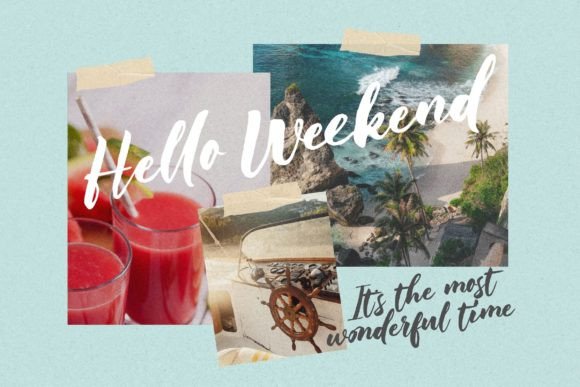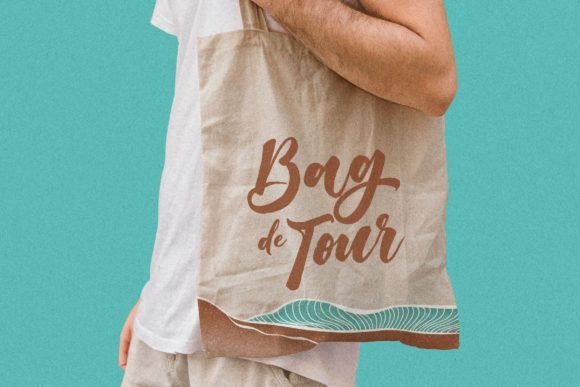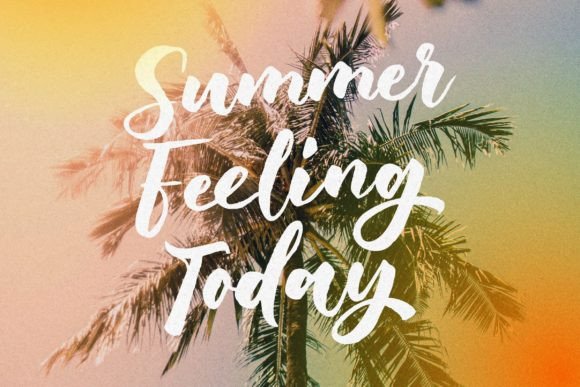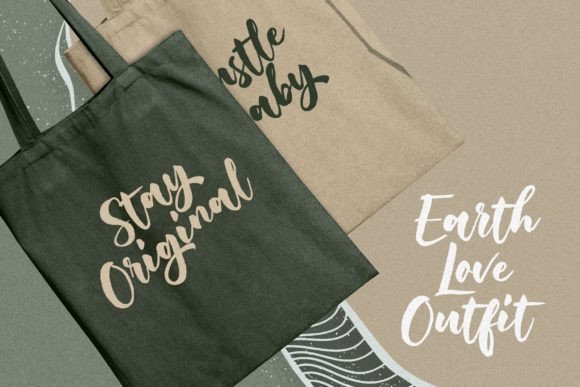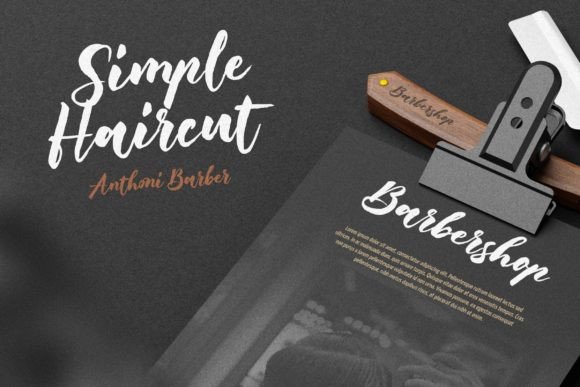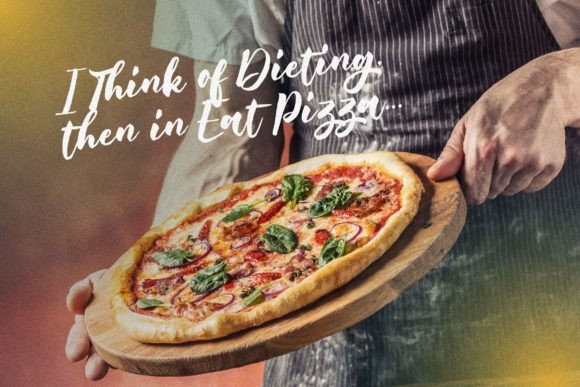
Born Pacific Font: Elevate Your Designs with a Touch of Elegance
Are you a designer or crafter looking for a font that can add a touch of sophistication and elegance to your work? Look no further than Born Pacific Font. This beautiful handwritten font is perfect for a wide range of design projects, from branding and photography to invitations and product packaging.
What is Born Pacific Font?
Born Pacific Font is a carefully crafted handwritten font that exudes a sense of refinement and luxury. Its elegant strokes and flowing lines make it perfect for designs that require a personal touch. Whether you’re working on a wedding invitation, a product label, or a brand identity, Born Pacific Font is sure to impress.
What Can I Use Born Pacific Font For?
The versatility of Born Pacific Font is one of its standout features. This font is perfect for:
- Branding: Create a lasting impression with your brand identity using Born Pacific Font. From logos to business cards, this font is sure to elevate your brand’s visual presence.
- Photography: Add a touch of elegance to your photo captions, watermarks, or even photo editing software overlays.
- Invitations: Make your invitations stand out with Born Pacific Font. Perfect for weddings, baby showers, or any other special occasion.
- Watermarks: Protect your images with a stylish watermark that adds a touch of sophistication.
- Advertisements: Create eye-catching ads that grab attention with Born Pacific Font.
- Product Designs: Add a personal touch to your product designs, from labels to packaging.
- Stationery: Elevate your stationery game with beautifully designed letters, notecards, or journals.
- Wedding Designs: Make your wedding designs truly special with Born Pacific Font. From invitations to wedding certificates, this font is perfect for any wedding-related project.
- Labels: Create stylish labels for your products, files, or even gifts.
- Product Packaging: Add a touch of luxury to your product packaging with Born Pacific Font.
- Special Events: Create memorable designs for any special event, from birthdays to anniversaries.
Why Choose Born Pacific Font?
So, why should you choose Born Pacific Font for your design projects? Here are just a few reasons:
- Elegant and Refined: Born Pacific Font has a sophisticated and elegant feel that’s perfect for designs that require a touch of luxury.
- Versatile: This font is suitable for a wide range of design projects, from branding to product packaging.
- Handwritten: The handwritten nature of Born Pacific Font adds a personal touch to your designs, making them stand out from the crowd.
- Easy to Read: Despite its elegant feel, Born Pacific Font is easy to read, making it perfect for designs that require a clear and concise message.
Tips for Using Born Pacific Font
To get the most out of Born Pacific Font, here are a few tips:
- Experiment with Sizes: Try using Born Pacific Font in different sizes to create visual interest and hierarchy in your designs.
- Pair with Other Fonts: Combine Born Pacific Font with other fonts to create a unique and visually appealing typography.
- Use on Different Backgrounds: Experiment with using Born Pacific Font on different backgrounds to create contrasting effects.